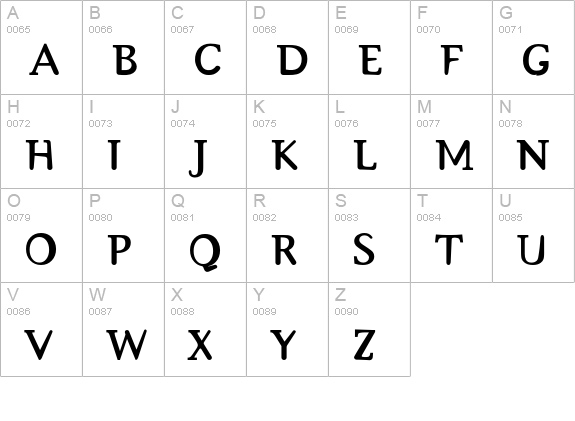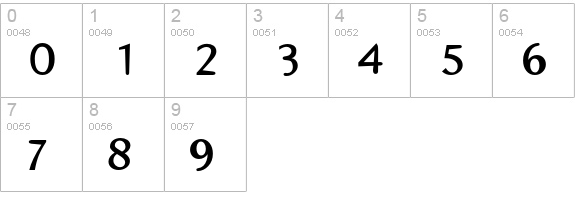
EmulateSerif-Bold Font Details
EmulateSerif-Bold is a strong, high-contrast variant in the EmulateSerif typeface family \xE2\x80\x94 well suited to headlines, attention-grabbing titles, and strong calls-to-action.
EmulateSerif-Bold is a striking and versatile typeface that exudes elegance and sophistication. With its bold and commanding presence, this font is perfect for making a statement in headlines, logos, and branding materials. The strong serifs and clean lines of EmulateSerif-Bold add a touch of classic charm to any design project. What sets EmulateSerif-Bold apart is its seamless blend of traditional elements with a modern twist, making it a timeless choice for both print and digital applications. Whether you're designing a poster, website, or packaging, this font will add a touch of sophistication and professionalism. Best of all, EmulateSerif-Bold is available for free download at FontsMarket.com. This means you can easily access and use this stunning font in your projects without any cost. Don't miss out on the opportunity to elevate your designs with the timeless appeal of EmulateSerif-Bold. Download it today and let your creativity shine!